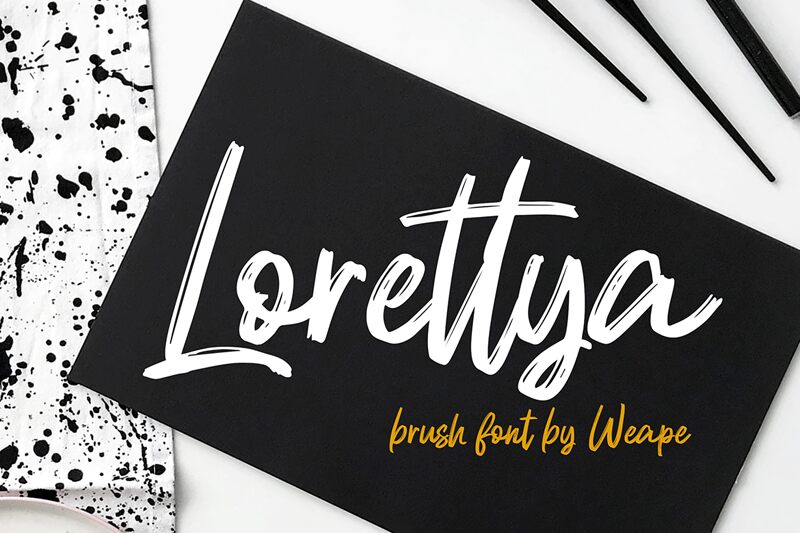
Lorettya font, designed by Wahyu Andi Prasetiyo, adds a touch of whimsy to any project with its brush style. The semi-bold font is perfect for creating unique logos, social media graphics, and advertising campaigns that need a playful yet professional look. Its thin width makes it ideal for body text in print and digital publications. Lorettya's versatile design brings life to website headers and titles while also adding personality to packaging designs. Want to create an eye-catching flyer or poster? Lorettya is the perfect font choice! Get creative and let Lorettya help you stand out from the crowd.
Lorettya